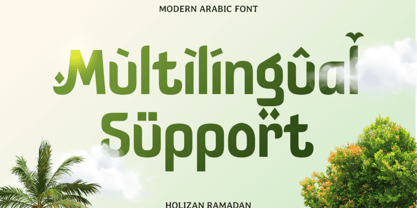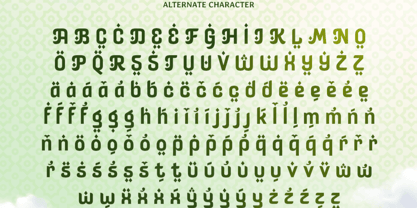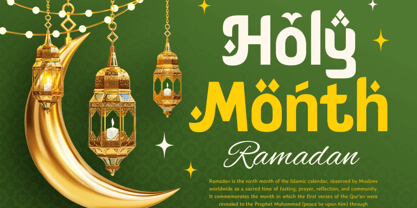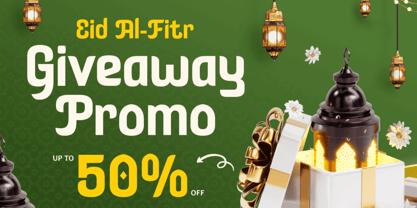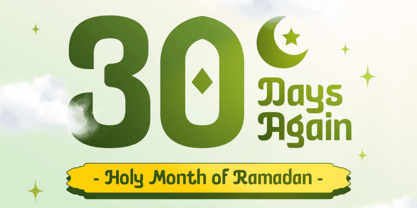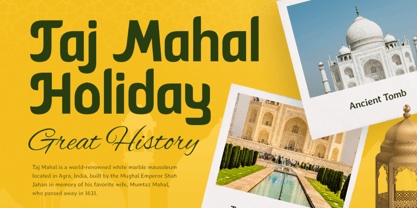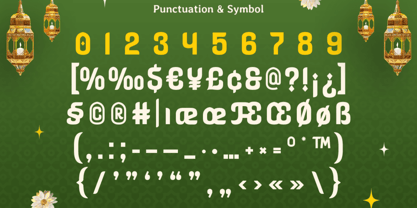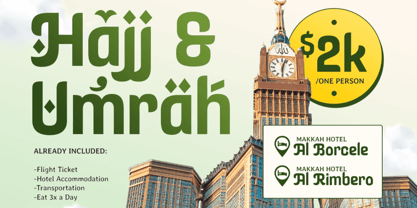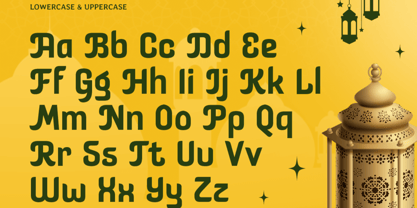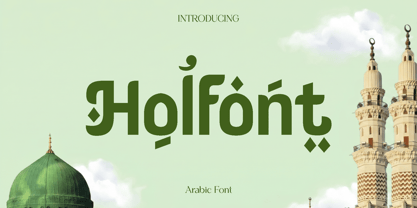
Holfont
by Only Fonts
The Holfont Font Family was designed by Olivia Love and published by Only Fonts. Holfont contains 1 styles. More about this family
Holfont – Elegant Ramadan Arabic Font Holfont is an elegant Arabic-inspired font designed to capture the warmth, beauty, and spiritual atmosphere of Ramadan. Drawing inspiration from the graceful flow of traditional Arabic calligraphy, Holfont merges cultural richness with modern design aesthetics, resulting in typography that feels timeless, artistic, and meaningful. Its flowing curves and refined details infuse a sense of harmony and celebration into every creative project. Ideal for festive and cultural designs, Holfont is perfect for Ramadan campaigns, Eid greeting cards, invitations, Islamic branding, packaging, event posters, social media graphics, and decorative typography. The font’s elegant personality allows it to adapt beautifully to both traditional and contemporary layouts, ensuring your work feels authentic while maintaining a polished and modern appearance. Holfont is crafted for designers seeking typography that communicates emotion, creativity, and cultural identity. Its alternate characters provide flexibility for creating expressive and visually unique compositions, making every design feel more personal and memorable. Whether used in bold headlines or subtle decorative details, Holfont adds sophistication and artistic charm that instantly elevates the visual experience. By blending heritage with modern creativity, Holfont transforms typography into a beautiful artistic statement. It is an ideal choice for creators who wish to celebrate Islamic culture through elegant and inspiring design. Holfont Arabic Font Features: • Alternate characters ready • Punctuation, numbers, and symbols • Uppercase and lowercase • OpenType features • Multilingual support for 50 plus languages • Elegant Arabic-inspired style • Perfect for Ramadan, Eid, invitations, branding, and cultural projects
Designers: Olivia Love
Current Foundry: Only Fonts